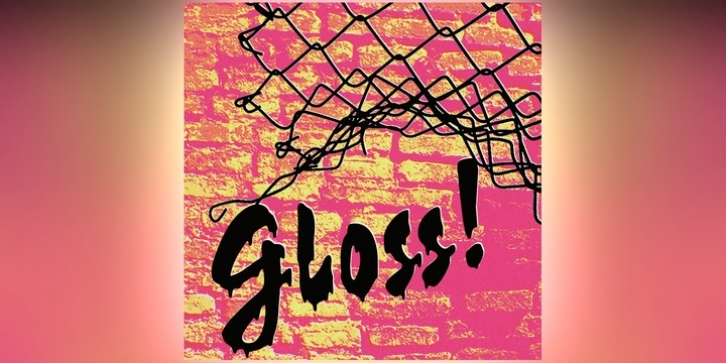
Gloss is based on Champion, a 1957 metal script by G. G. Lange.
Not only are the paint drips pseudo-randomized using OpenType ligatures, but they’re skewed slightly to the right; that makes Gloss look even better when set on an incline. The twice recycled retro (1950s and 1980s) vibe gives Gloss a trashy fashion punch.